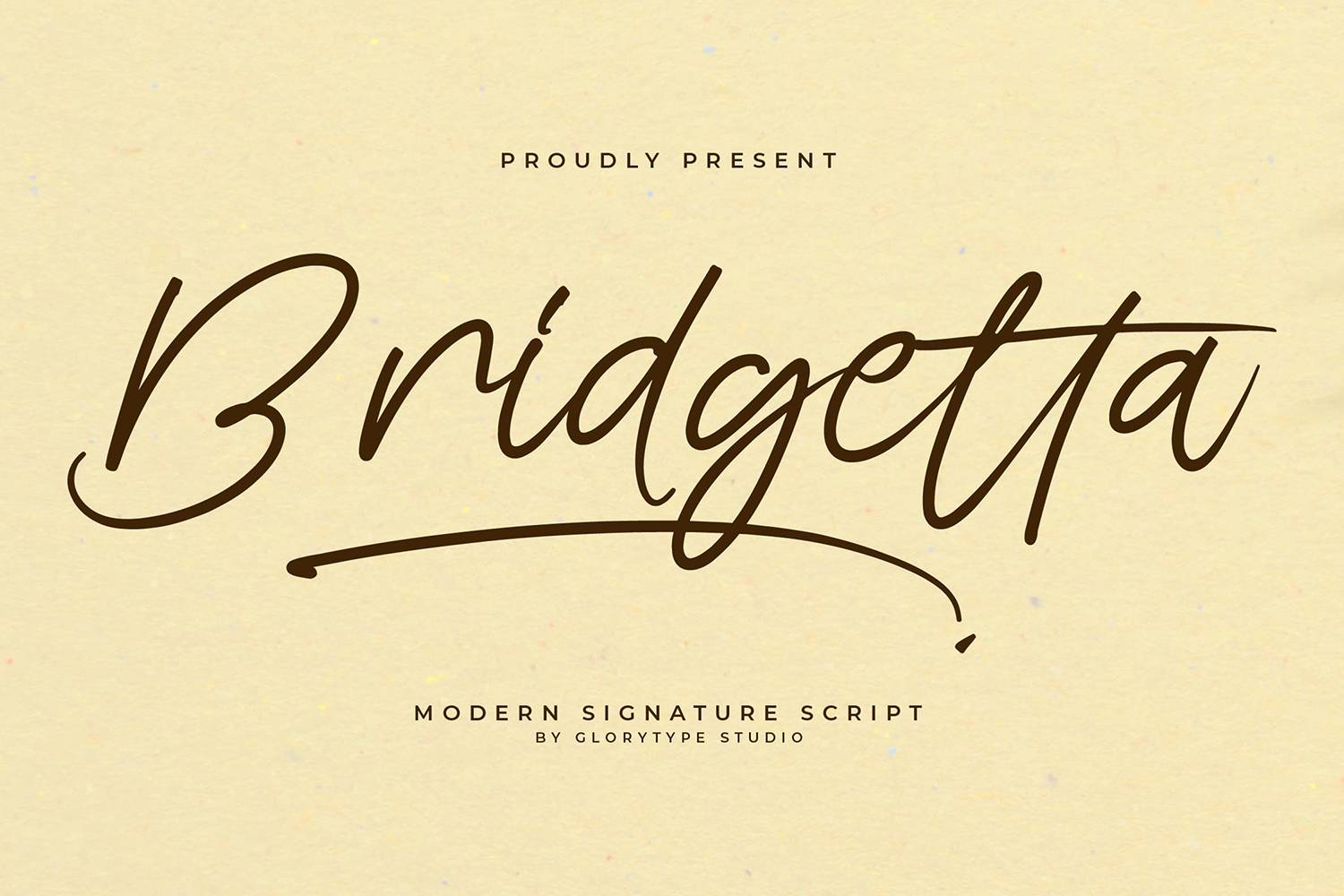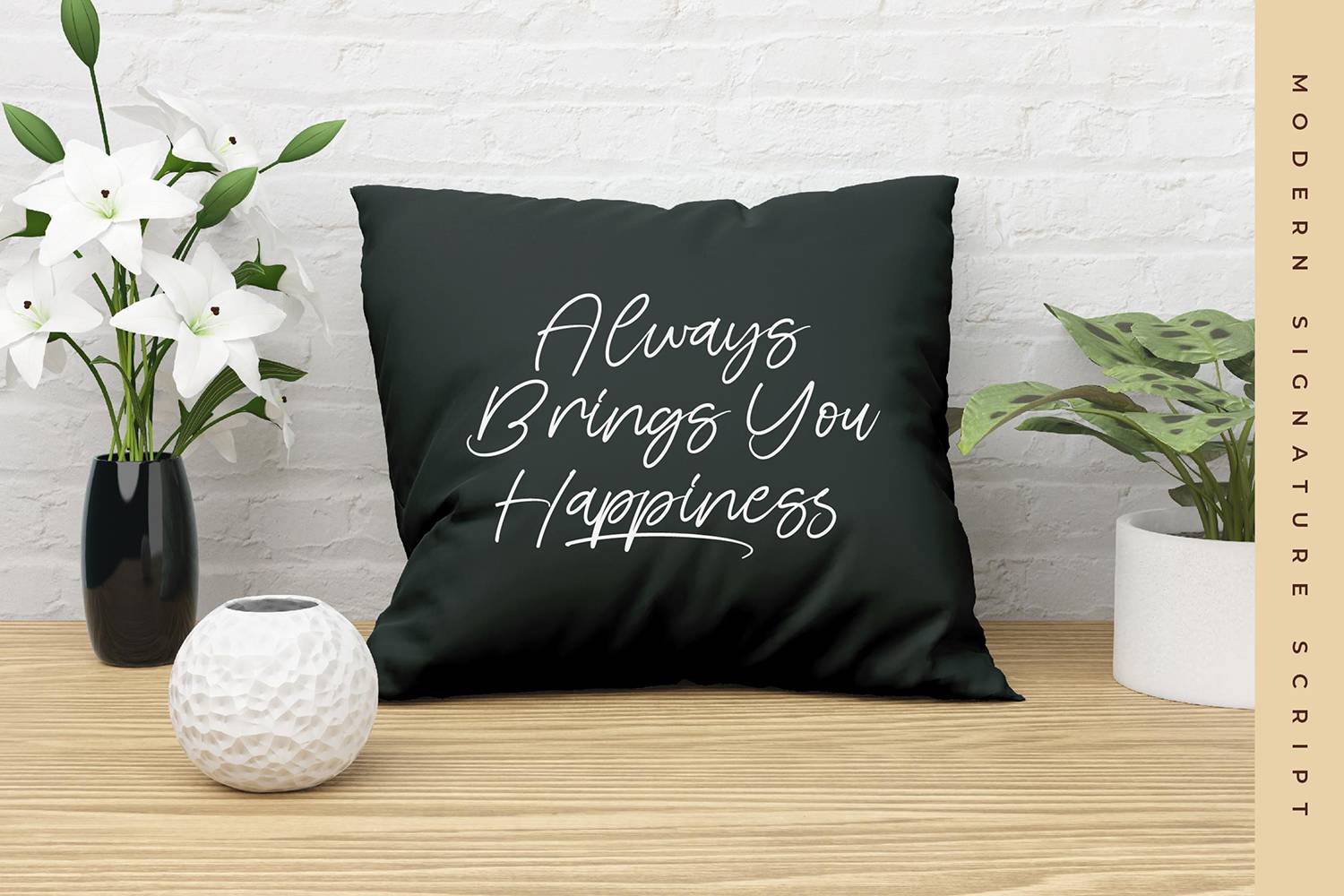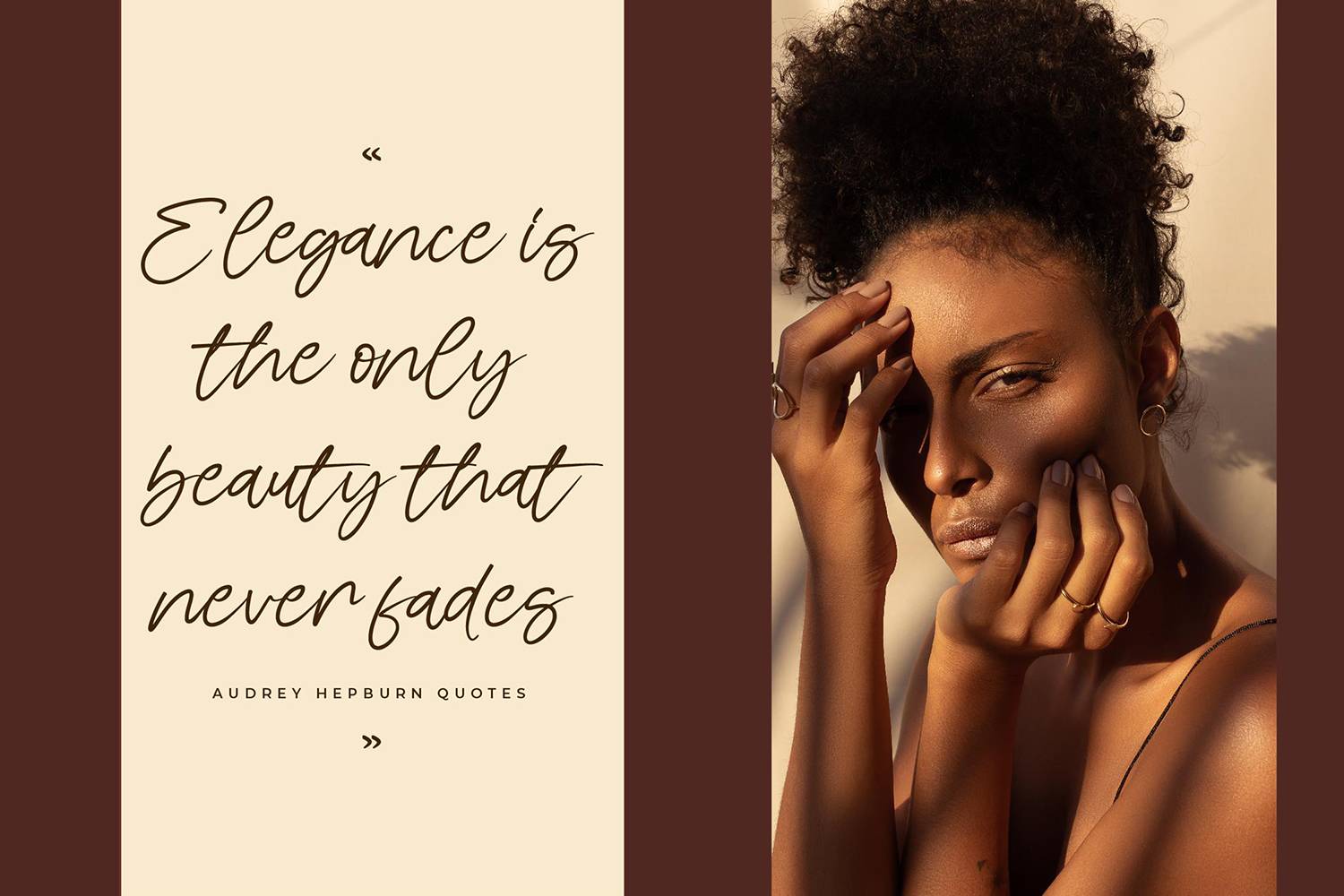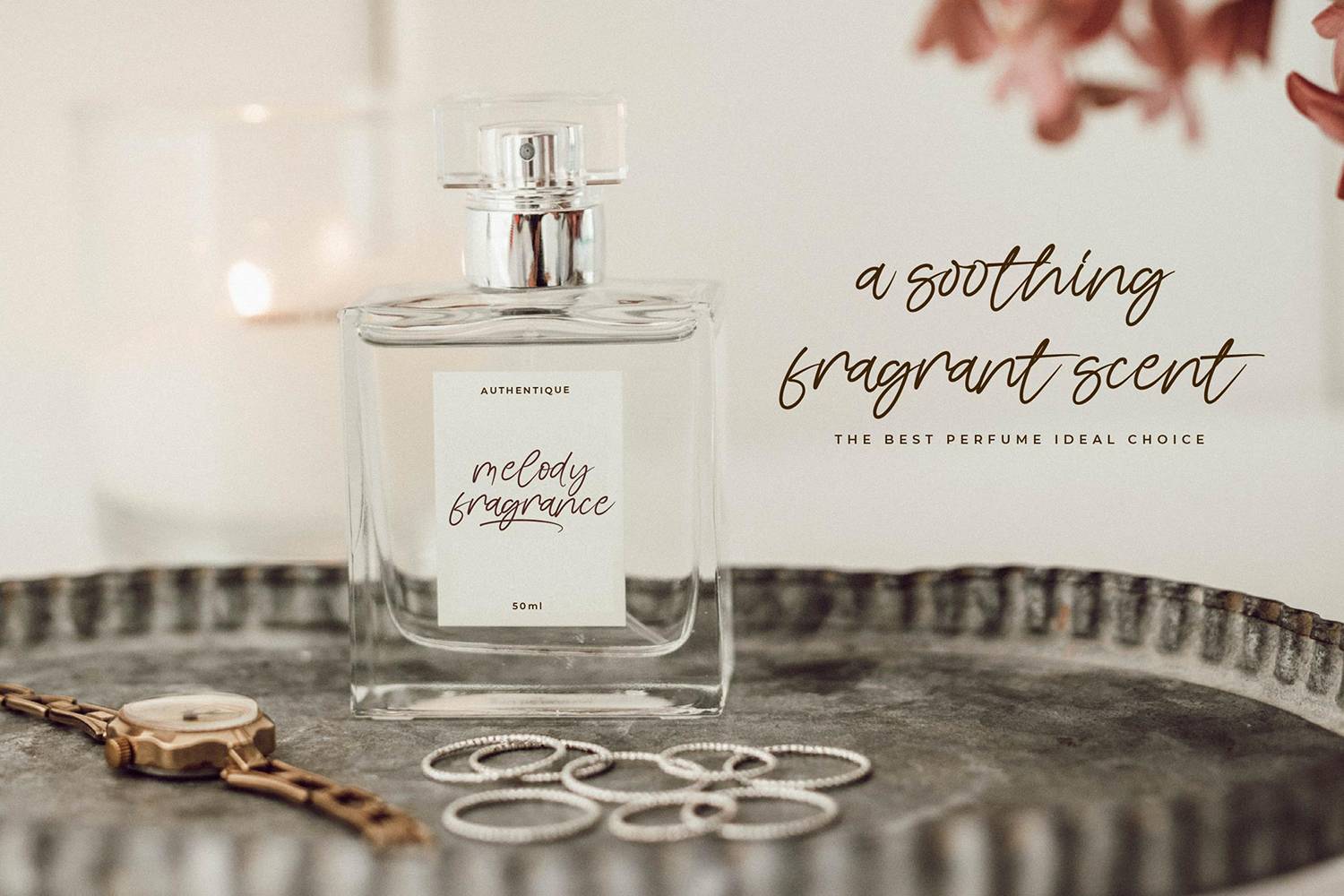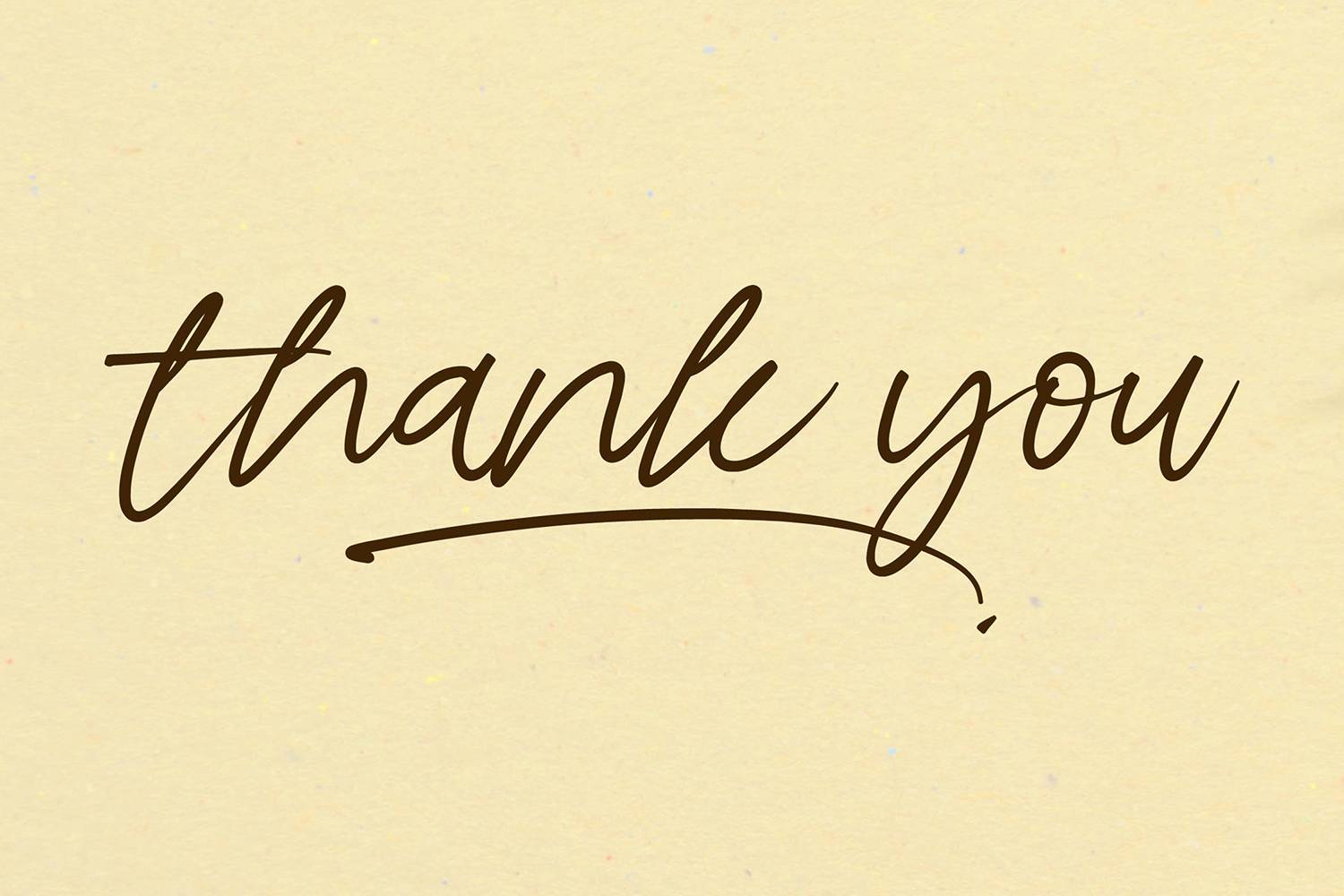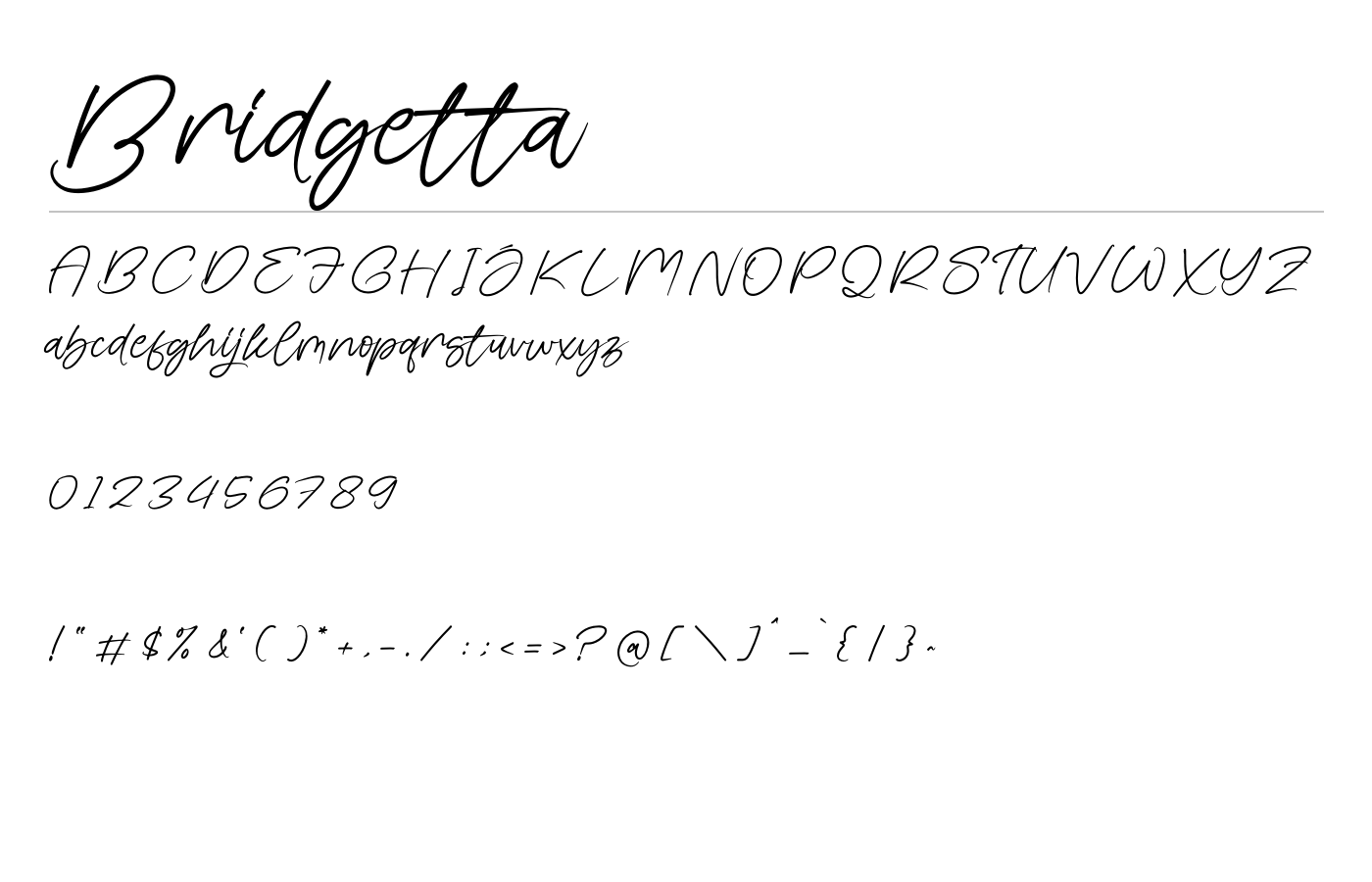
Bridgetta is a delicate, handwritten script font that features graceful, flowing letterforms with a natural and personal touch. Its thin, elegant strokes and slightly irregular lines give it a charming, casual feel, making it ideal for invitations, branding, and designs that aim to convey warmth and individuality. This font works beautifully for creative projects that desire a soft, stylish, and approachable aesthetic.
Bridgetta Font
About Bridgetta Font